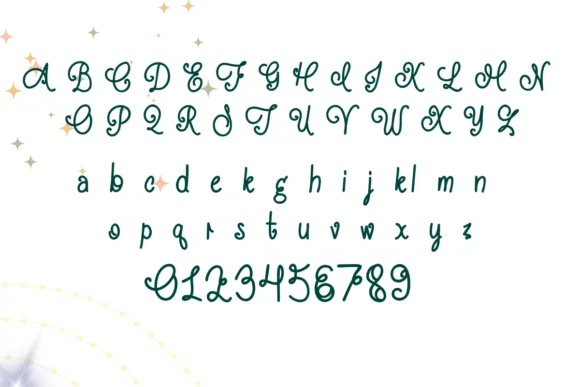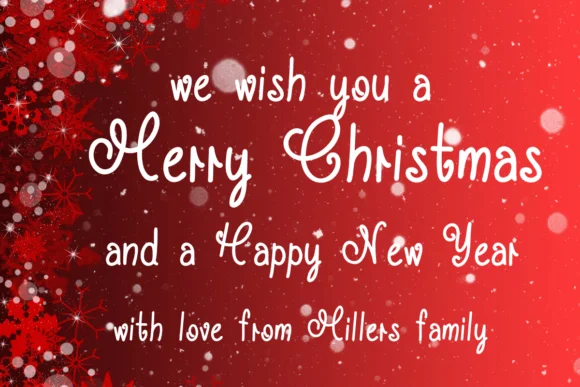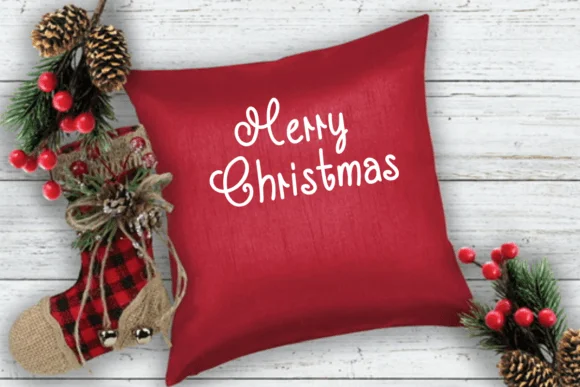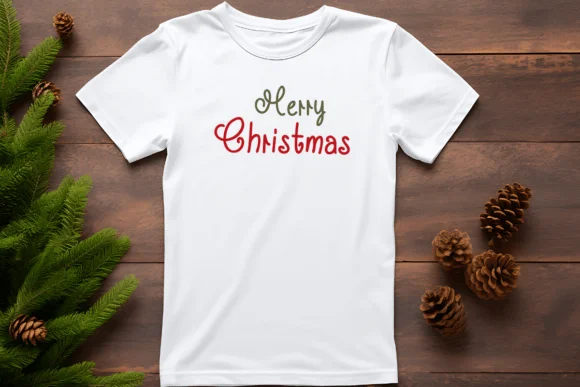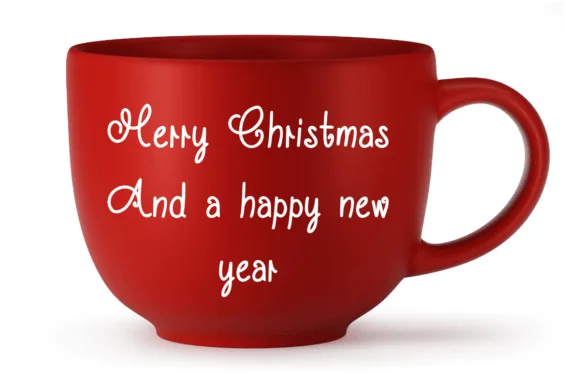
Christmas New Year Font
Christmas New Year Font is exciting because it masterfully captures the unique magic of the holiday season's grand finale, when Christmas joy seamlessly transitions into New Year celebration through its dynamic letterforms that embody both festive tradition and forward-looking optimism. The font features energetic characters with celebratory flourishes that incorporate both Christmas warmth and New Year sparkle, creating typography that bridges the gap between reflective holiday gratitude and enthusiastic future anticipation. Each letter showcases the dual nature of this special time period with elegant curves that suggest Christmas elegance while incorporating bold, confident strokes that reflect New Year excitement and resolution. The design perfectly captures the bittersweet beauty of Christmas ending and the exhilarating promise of a fresh start, creating typography that celebrates both cherished memories and bright possibilities.
The Christmas New Year Font family includes transitional style variations: Regular, Bold, Light, Sparkle, and Countdown versions. The collection features special dual-holiday elements including Christmas star accents, New Year firework details, calendar flourishes, and celebration ornaments. Additional components include festive borders, countdown frames, celebration decorations, and transition ornamental designs that enhance the font's Christmas New Year appeal and create cohesive year-end holiday themes.
Event planners and seasonal marketers will find Christmas New Year Font to be an invaluable resource for creating comprehensive holiday communications that celebrate the entire festive season from Christmas through New Year. This thoughtfully designed font transforms ordinary year-end messaging into dynamic expressions that capture both the warmth of Christmas traditions and the excitement of New Year possibilities.
The typeface includes comprehensive character support with celebratory styling that maintains excellent readability while conveying the dual joy and anticipation of Christmas and New Year celebrations. The font's dynamic design ensures spectacular results across both intimate family gatherings and large-scale public celebrations.